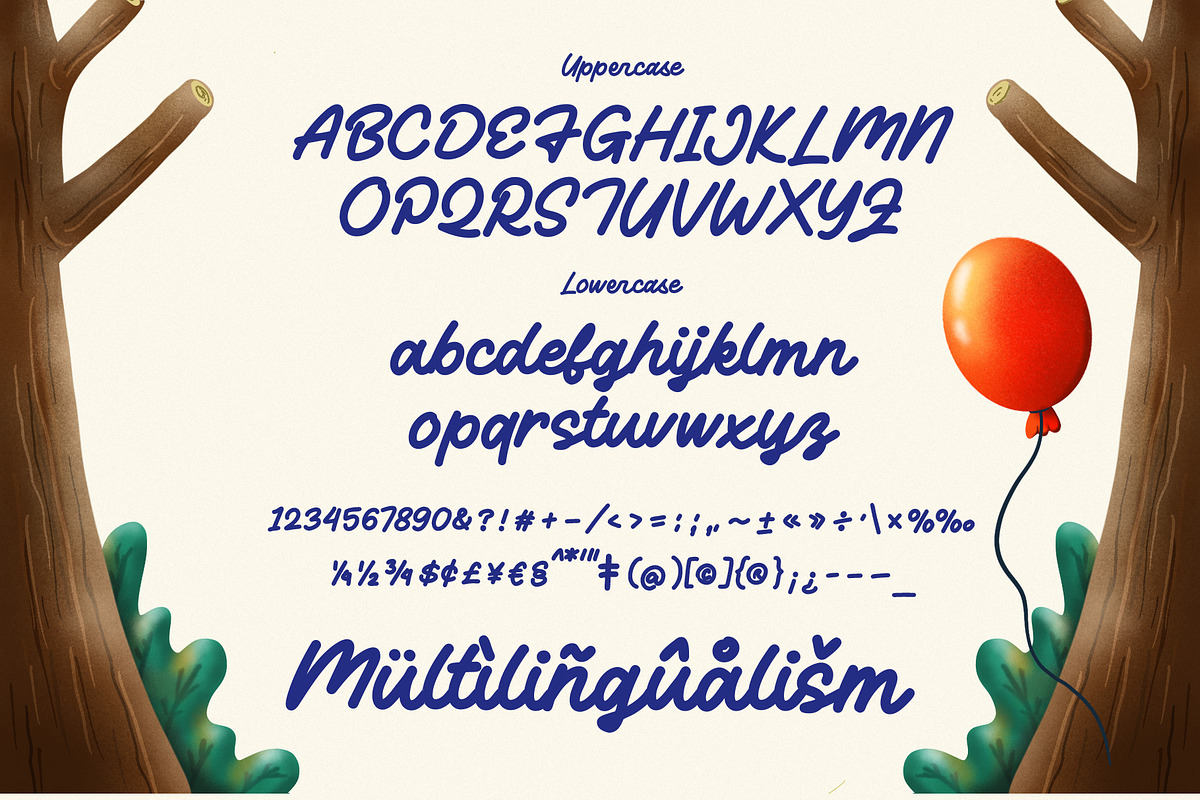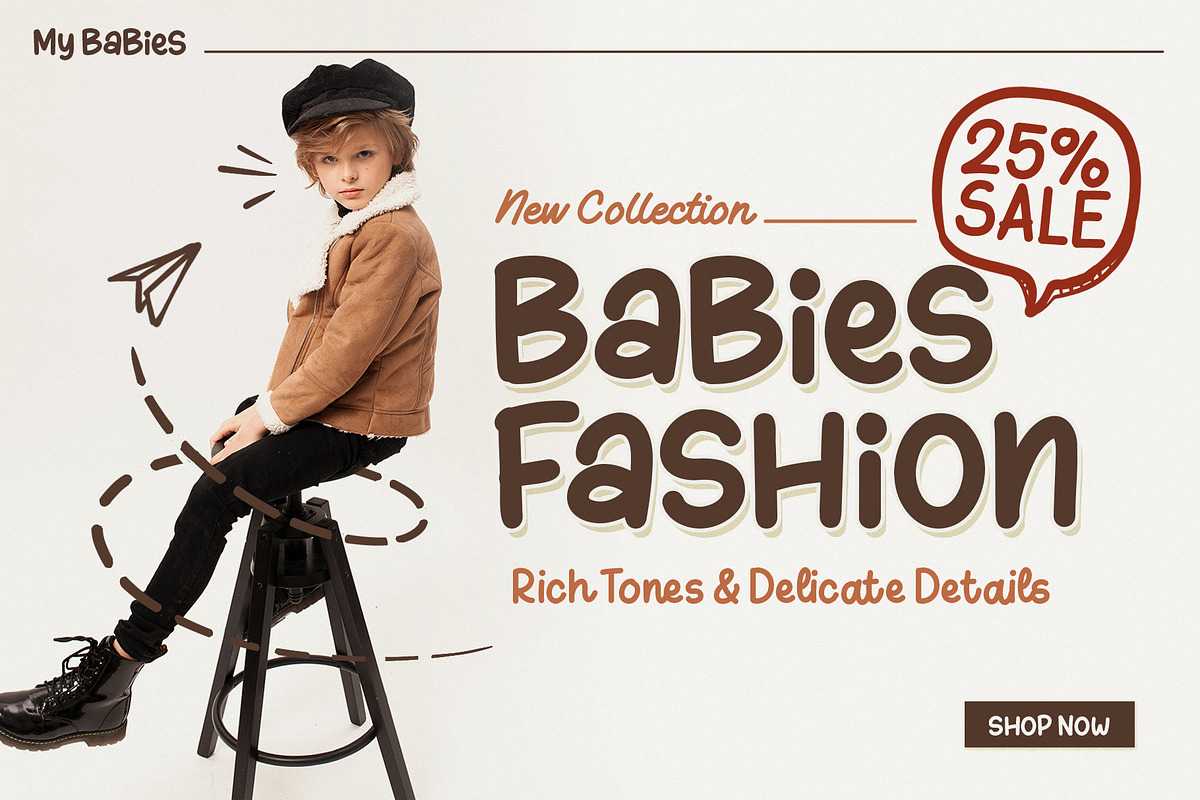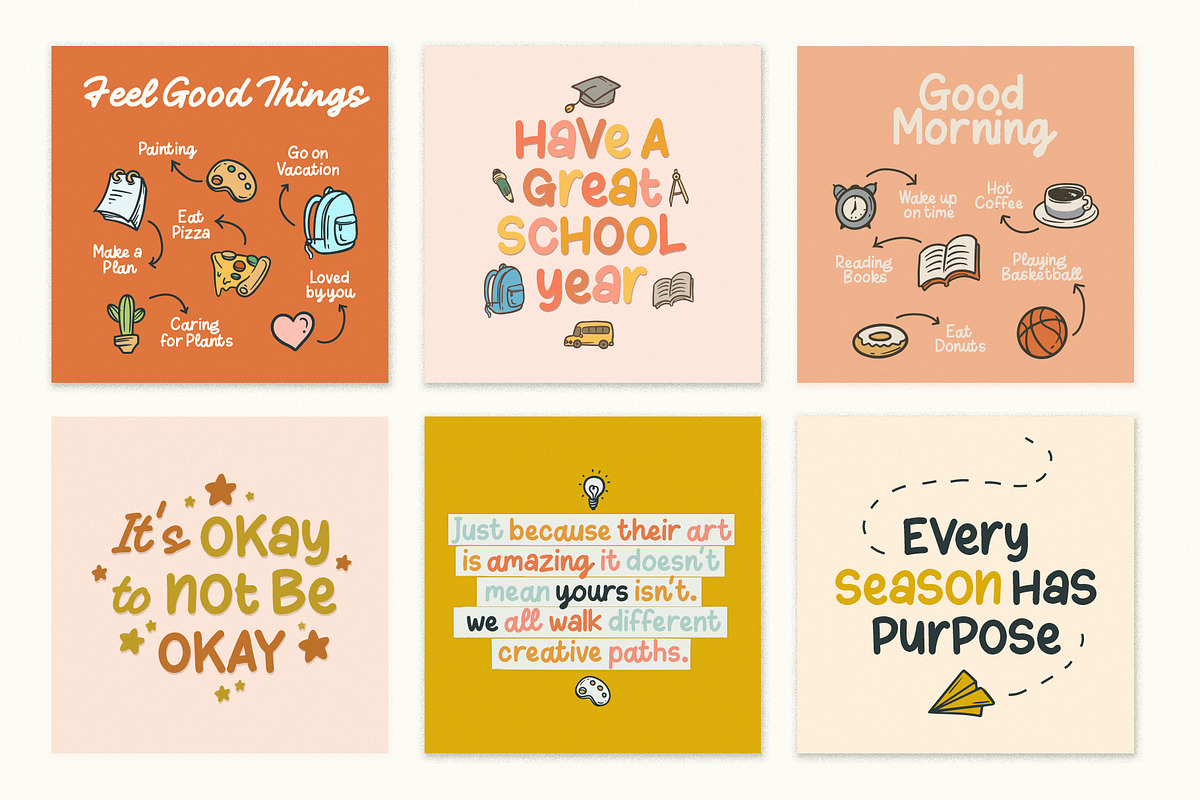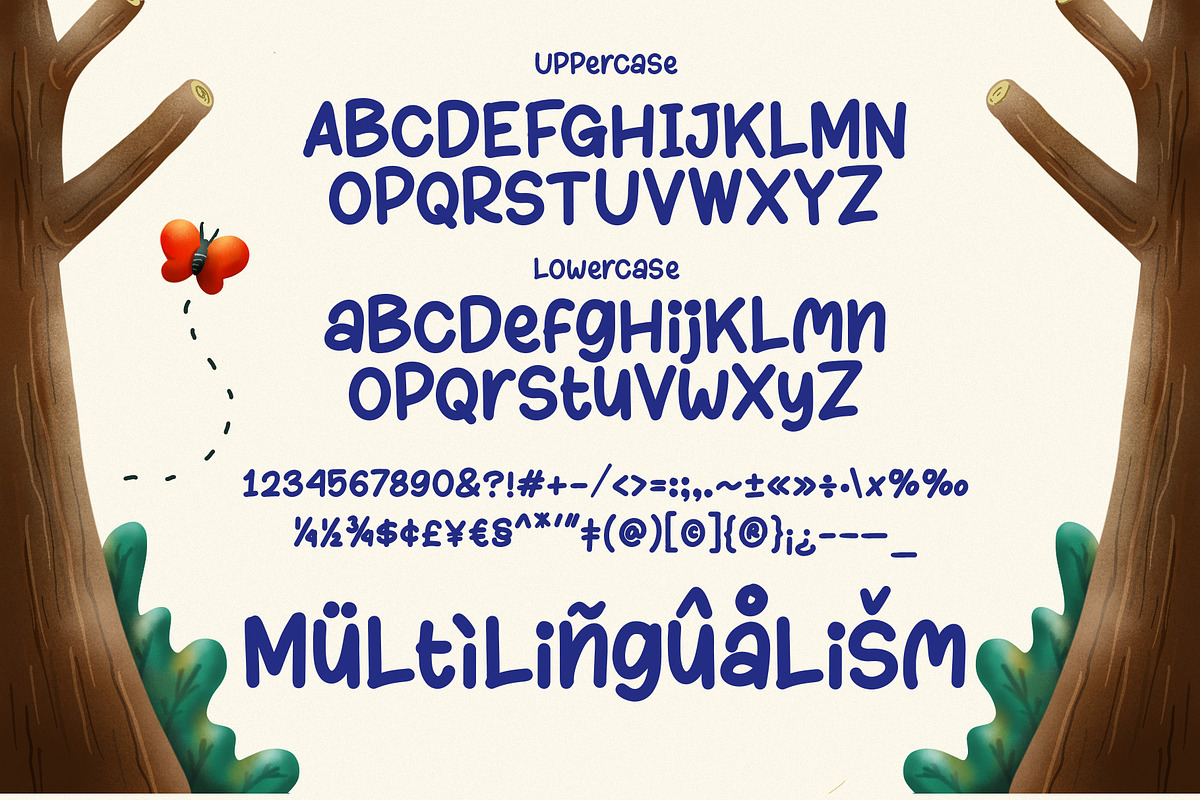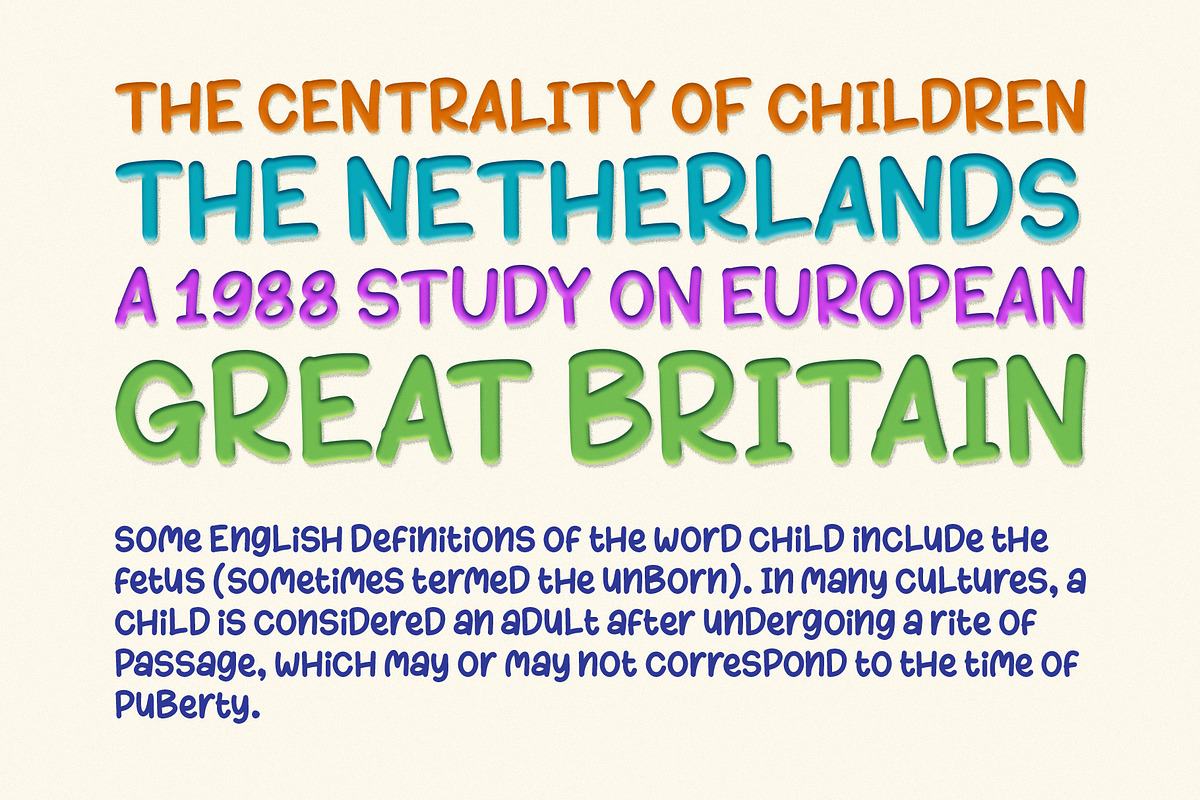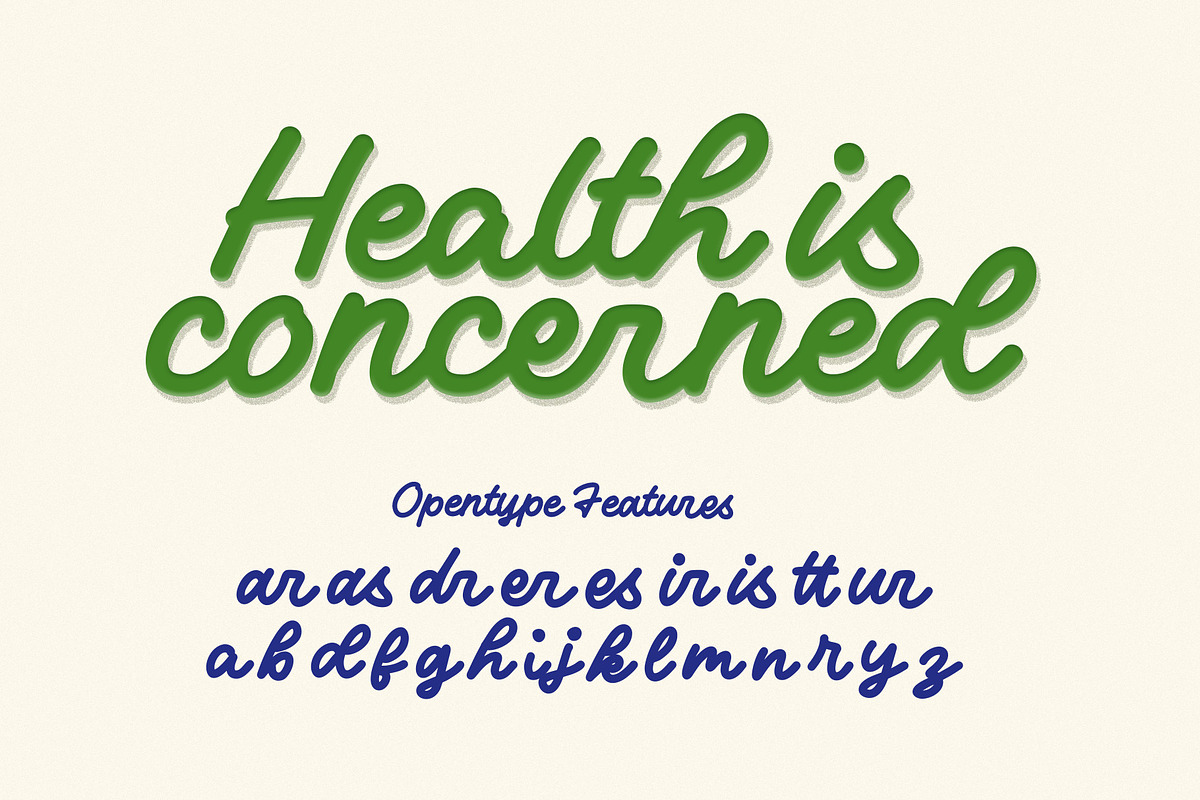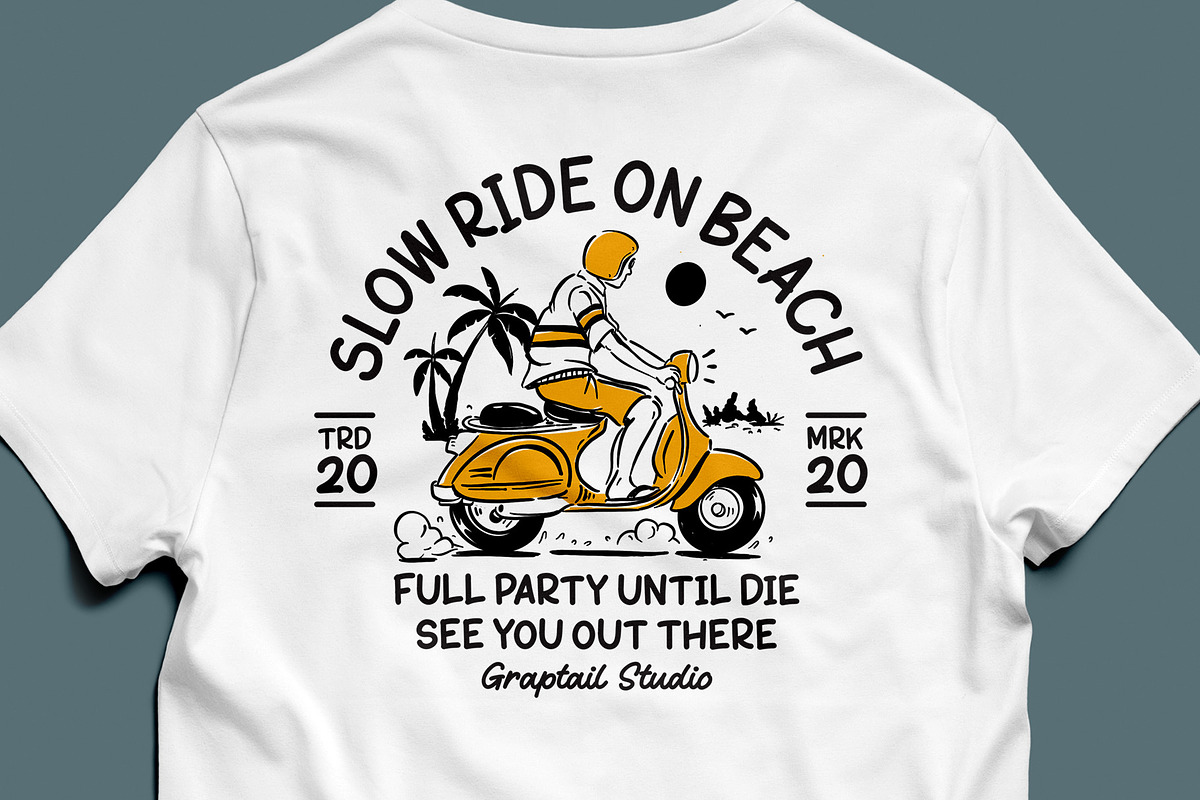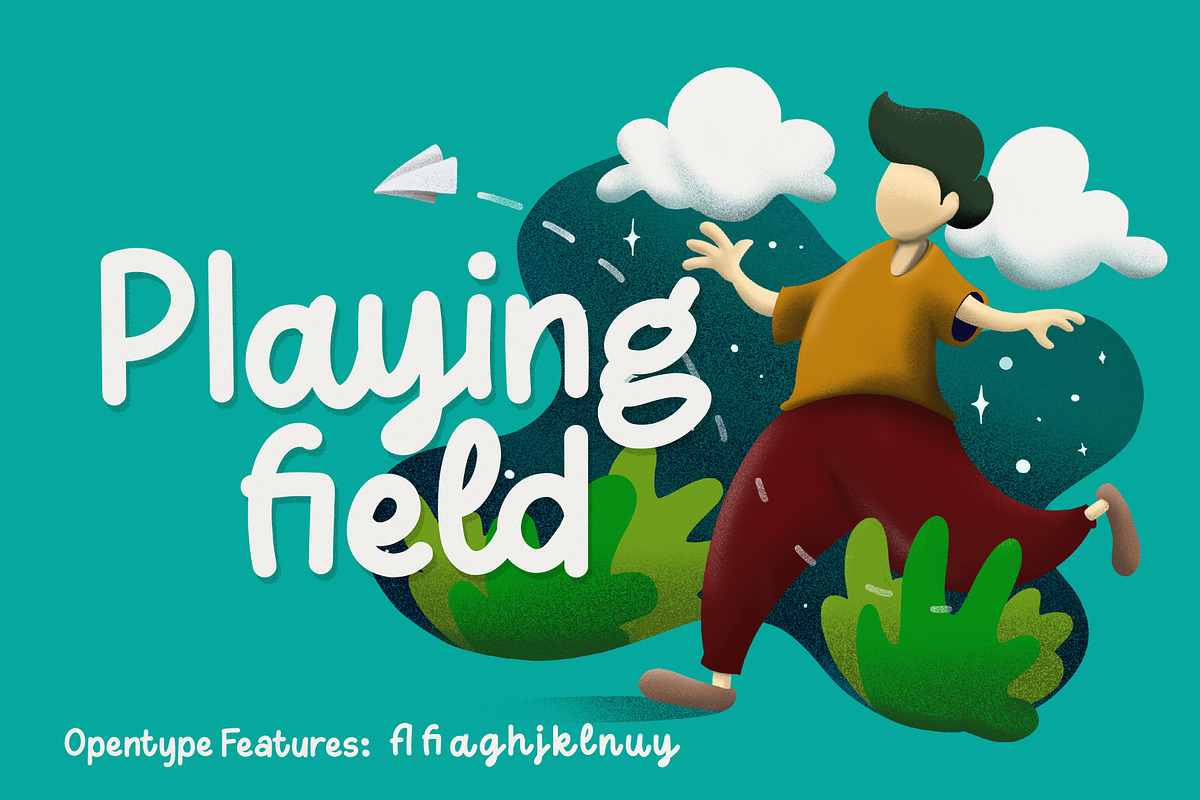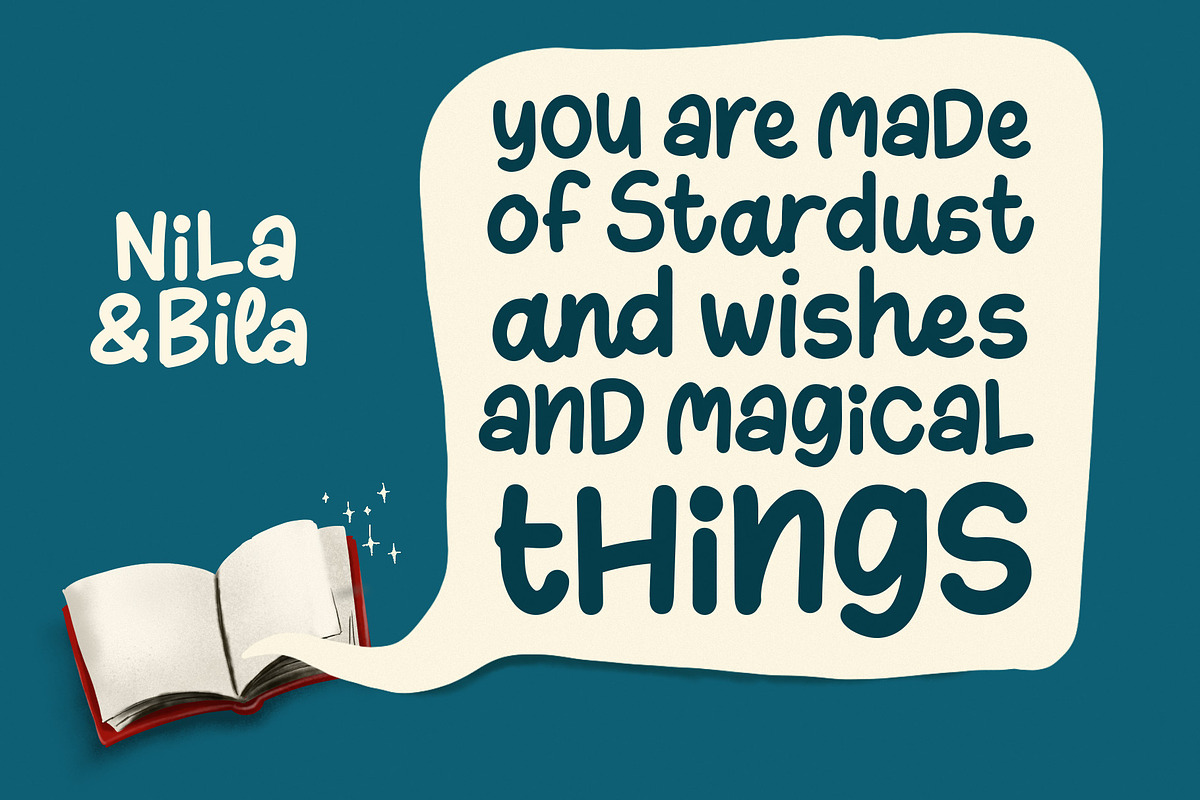
Hello! Nila & Bila Typeface
Say Hello to Nila & Bila - a cute little font with three great fonts and complete with illustrations and icons that can add to your excitement, easy to use, and you can combine them to get results that inspire your work.
Nila & Bila Font best uses for headings, Logo type, quotes, apparel design, invitations, flyer, poster, greeting cards, product packaging, book cover, printed quotes, cover album, movie, etc
OPENTYPE FEATURES
- Discretionary Ligature
- Standard Ligature
- Fractions
- Stylistic Set